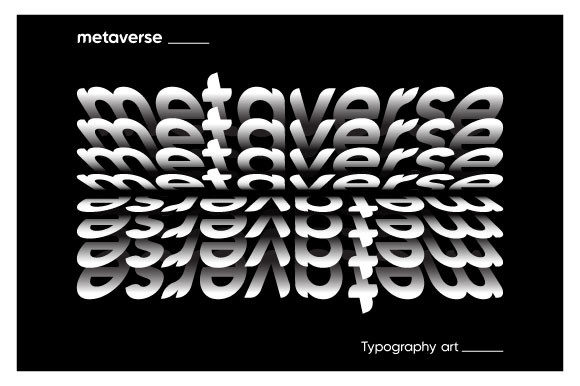
**Fibonachi: The Font That Will Make Your Designs Pop**
In the world of design, first impressions matter. And when it comes to making a lasting impression, there's no better way than with a font that commands attention. Introducing Fibonachi, the bold and beautiful display font that will make your designs shine.
Crafted by the talented team at Screen Studio, Fibonachi is a font that exudes confidence and style. Its thick, chunky letters are impossible to ignore, and its informal, casual vibe gives it a touch of playfulness that will make your designs stand out from the crowd.
Whether you're creating a logo, a website, or a social media post, Fibonachi is the perfect font to add a touch of personality and flair. Its high contrast and sharp edges make it perfect for use on retina displays, ensuring that your designs will look crisp and clear on any device.
If you're looking for a font that will make your designs pop, look no further than Fibonachi. With its bold, beautiful letters and informal, casual vibe, Fibonachi is the perfect font for adding a touch of personality and flair to any project.